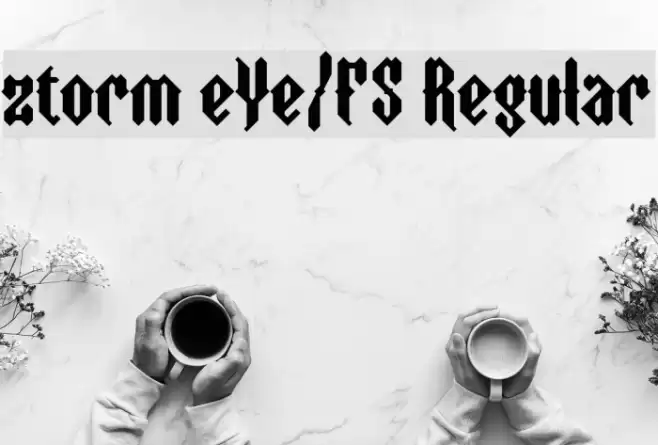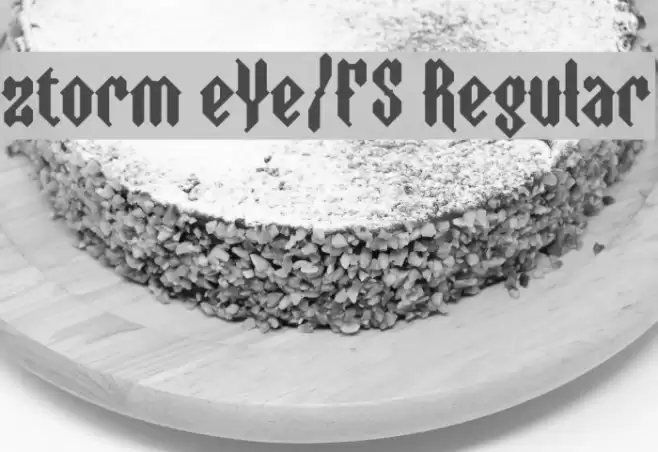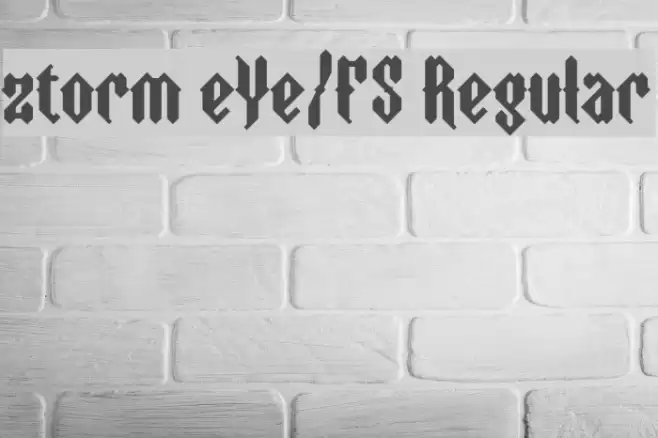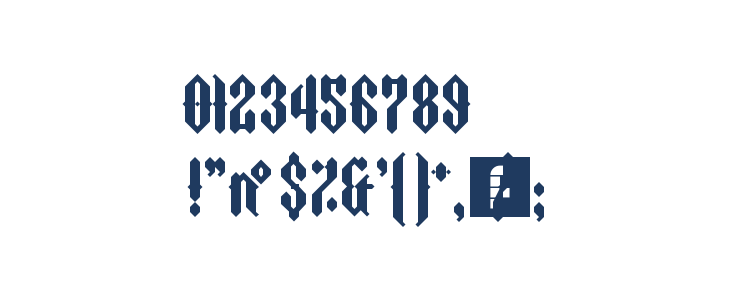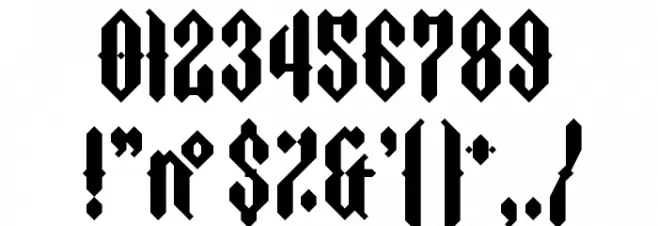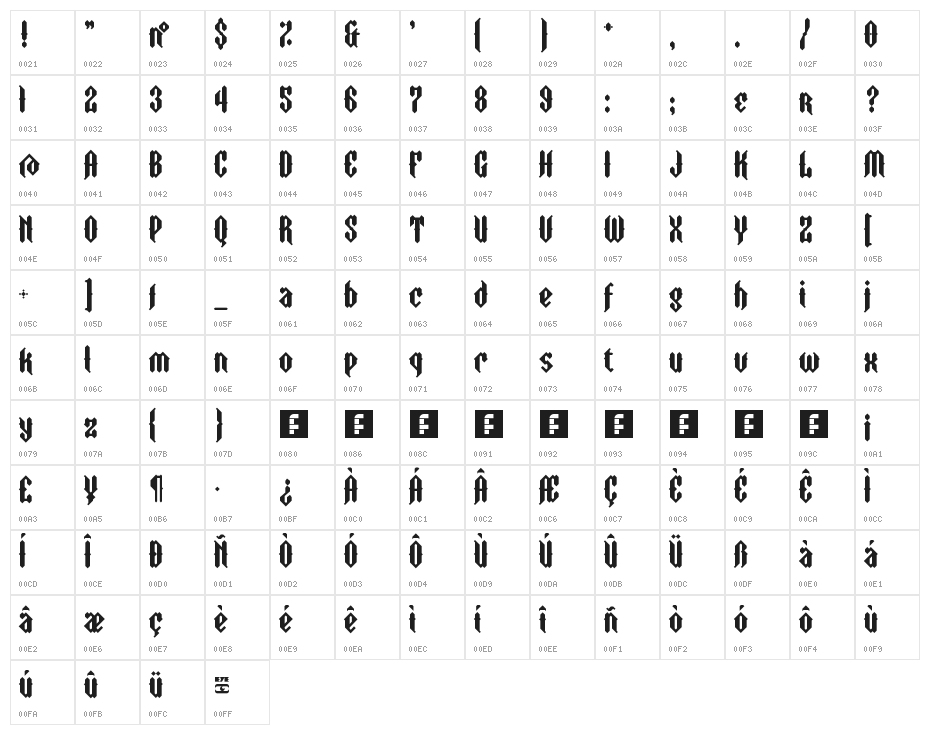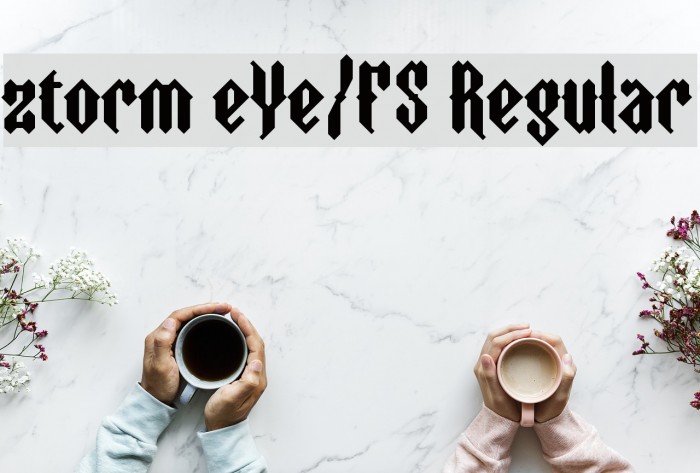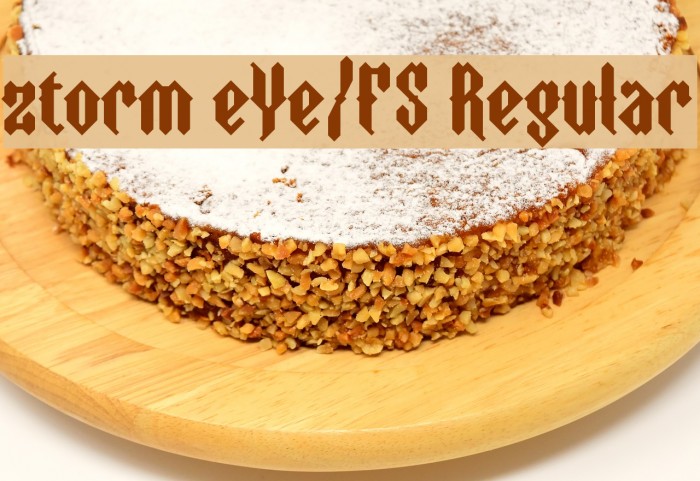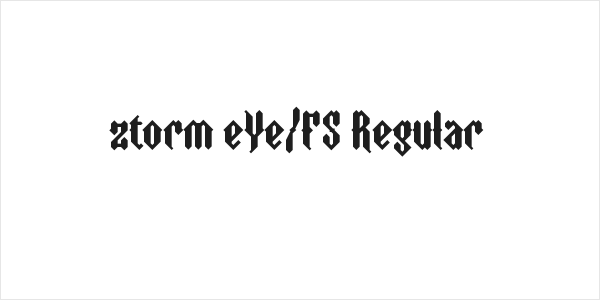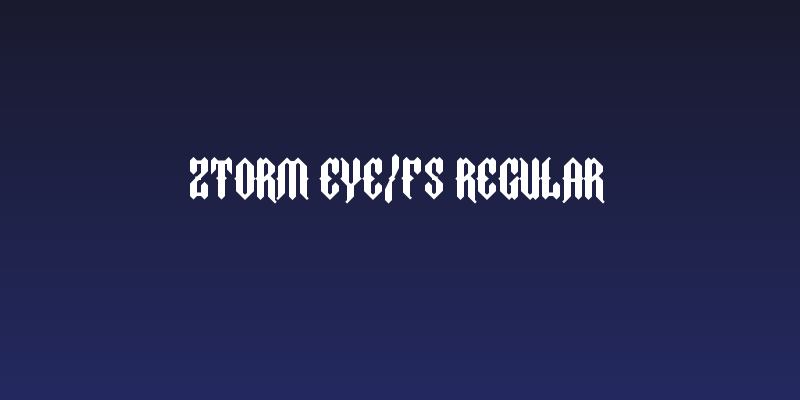
ztorm eYe/FS Regular Font
ztorm eYe/FS Regular Description
This font features a bold, angular design with a distinct Gothic influence, characterized by sharp edges and a strong vertical emphasis. The uppercase letters are tall and narrow, while the lowercase letters maintain a consistent style with slightly more rounded forms. Numbers and special characters follow the same angular and bold aesthetic, making them stand out prominently. The overall appearance is reminiscent of traditional Blackletter styles, yet it incorporates modern elements that give it a unique edge. This font is ideal for projects that require a dramatic and impactful visual presence.
A bold, angular Gothic-inspired font with a modern twist from Modern fonts.
- Character Spacing: Tight
- Overall Style: Modern Gothic